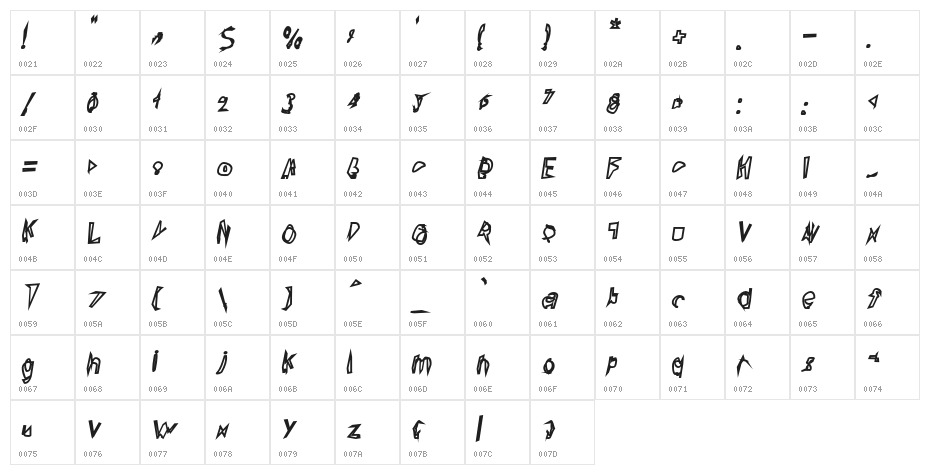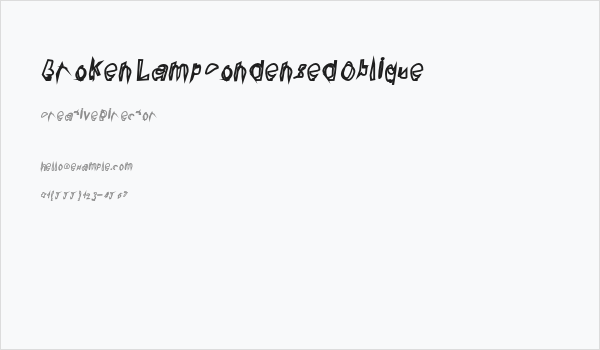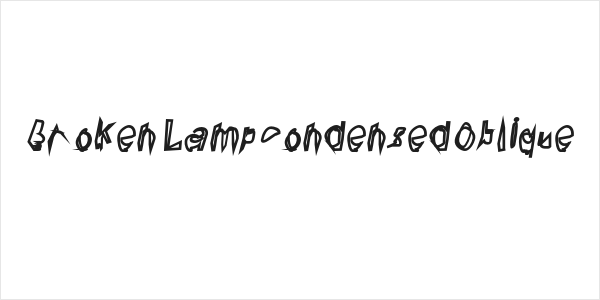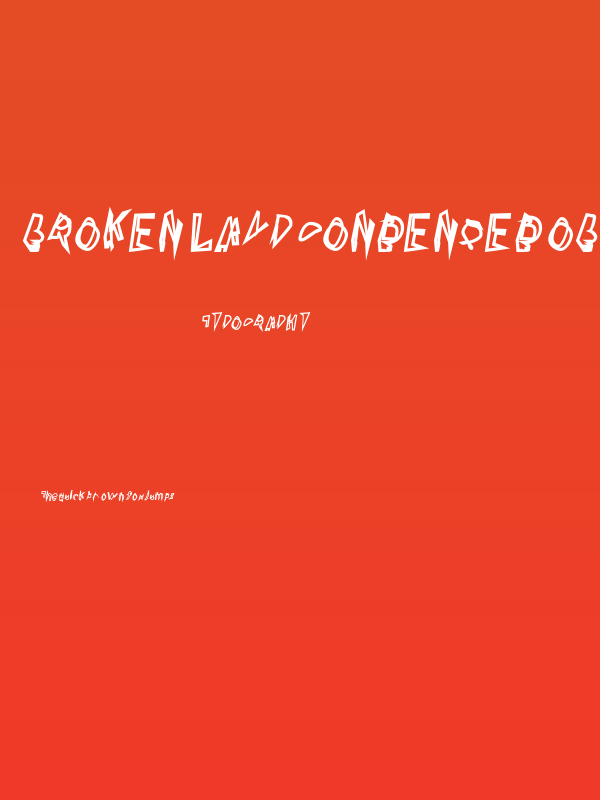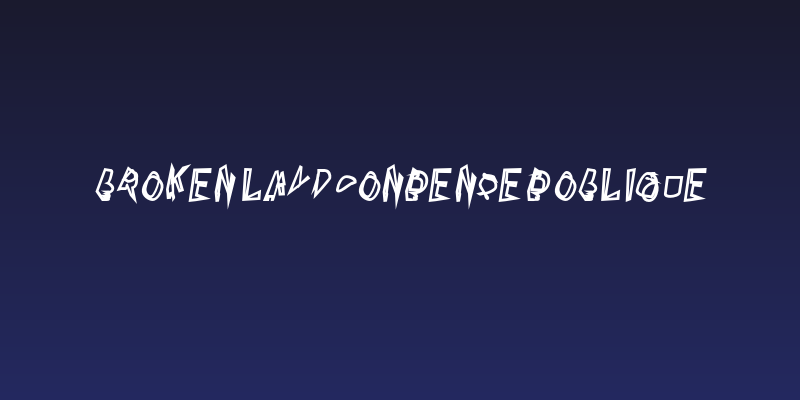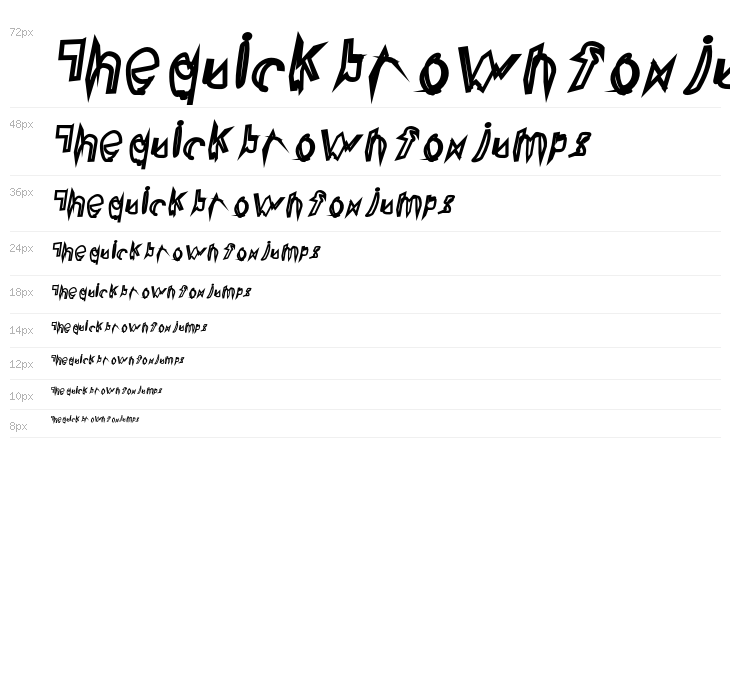
Broken Lamp Condensed Oblique Font
Broken Lamp Condensed Oblique Description
This font features a highly stylized and abstract design, characterized by sharp angles and irregular shapes. Each character appears to be fragmented, giving an impression of shattered glass or broken structures. The letters are bold and condensed, with a dynamic oblique slant that adds a sense of movement and energy. The font's unique style makes it stand out, with its jagged edges and unconventional forms. It is not suitable for body text due to its complexity but can be highly effective in creating eye-catching headlines or artistic designs. The numbers and special characters follow the same fragmented aesthetic, ensuring consistency across all glyphs.
| Overall Style | Modern, Abstract |
| Use Case | Headlines, Logos, Artistic designs |
| Proposed Projects | Ideal for edgy graphic designs, album covers, posters, and branding that requires a bold statement. |